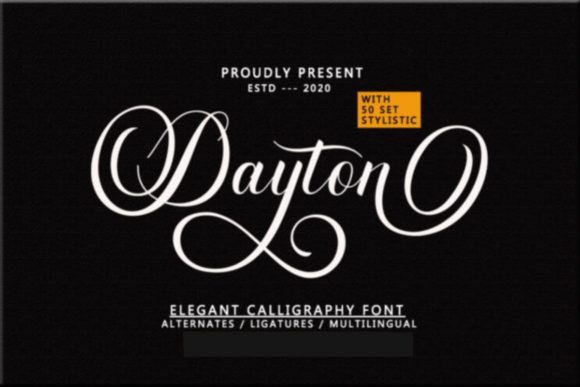
Introducing Dayton Script Font, the epitome of elegance and grace in the world of fonts. Created by the talented team at Stellar Studio, this script font is destined to leave a lasting impression on any design project it graces. With its captivating charm and stunning aesthetics, Dayton is the perfect choice for those in search of the best font for their wedding book.
Dayton Script Font exudes a sense of sophistication and romance that is unparalleled. Its flowing curves and graceful strokes create a visually captivating experience that will make your wedding invitations truly unforgettable. Imagine the joy of your loved ones as they receive an invitation adorned with this exquisite font, setting the tone for a magical celebration of love.
But the enchantment of Dayton doesn't stop at weddings alone. This versatile font is equally suited for thank you cards, quotes, greeting cards, logos, business cards, and any other design that craves a touch of handwritten elegance. Its varying baseline adds a playful rhythm to your text, while the smooth lines and gorgeous glyphs mesmerize the eye.
One of the most remarkable features of Dayton Script Font is its stunning alternates. These unique variations of each letter give you the freedom to experiment and create truly personalized designs. Let your creativity soar as you mix and match these alternates to craft a one-of-a-kind masterpiece.
With Dayton Script Font, the possibilities are endless. Whether you're a professional designer or someone who simply appreciates the beauty of typography, this font is a must-have in your collection. Its timeless appeal and emotional resonance will captivate your audience, leaving a lasting impression that echoes long after the first glance.